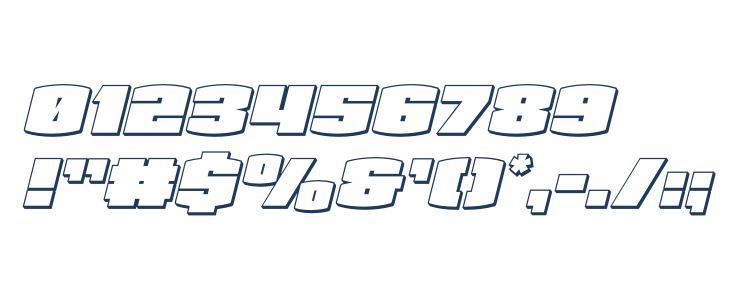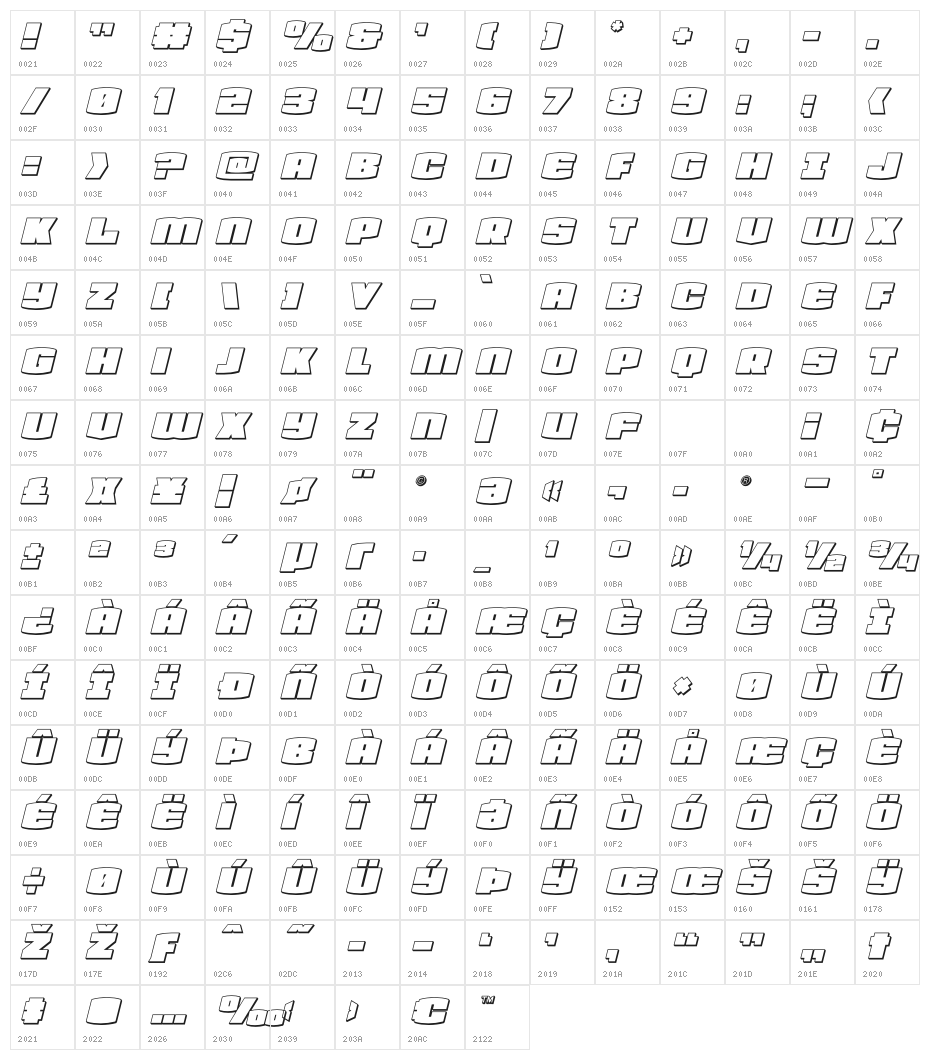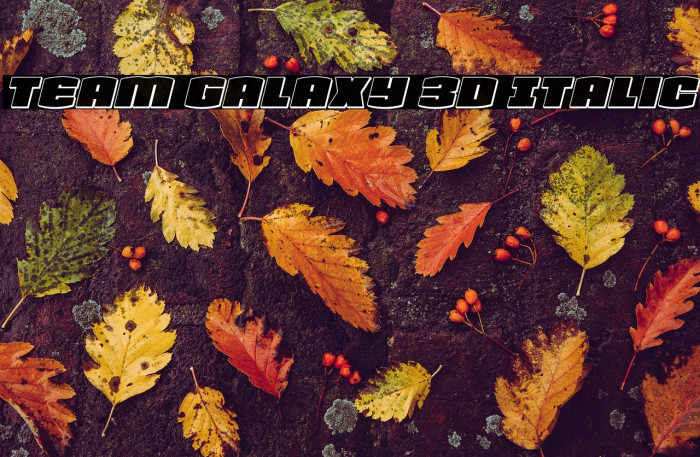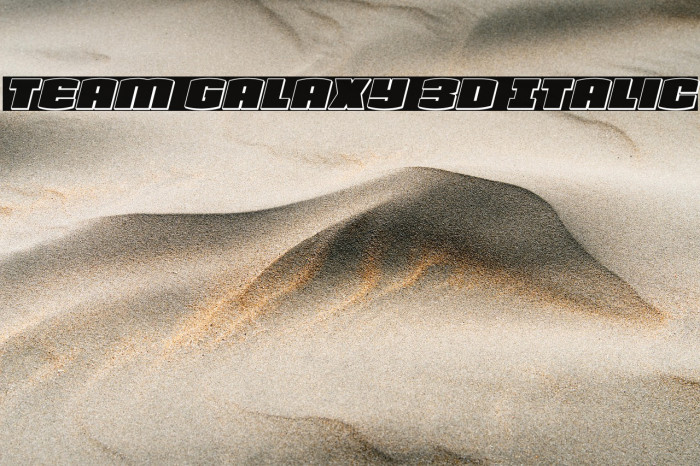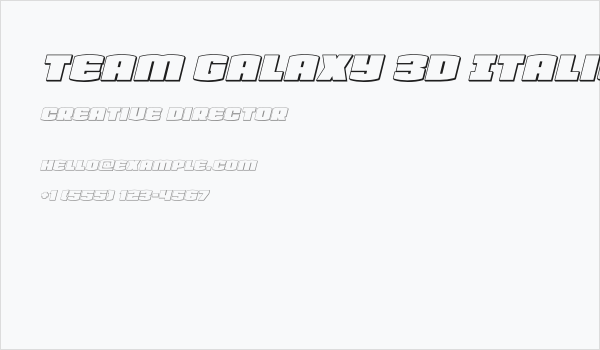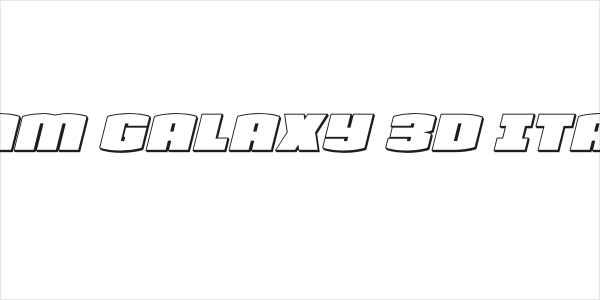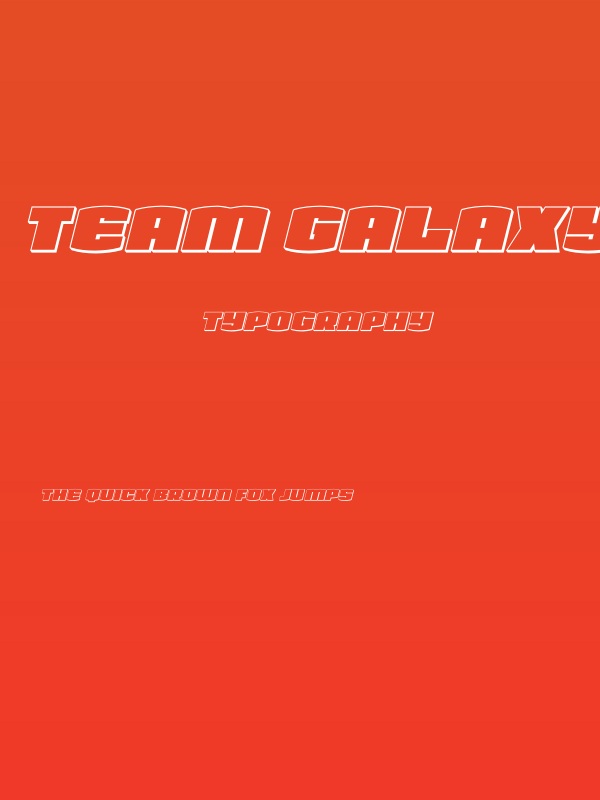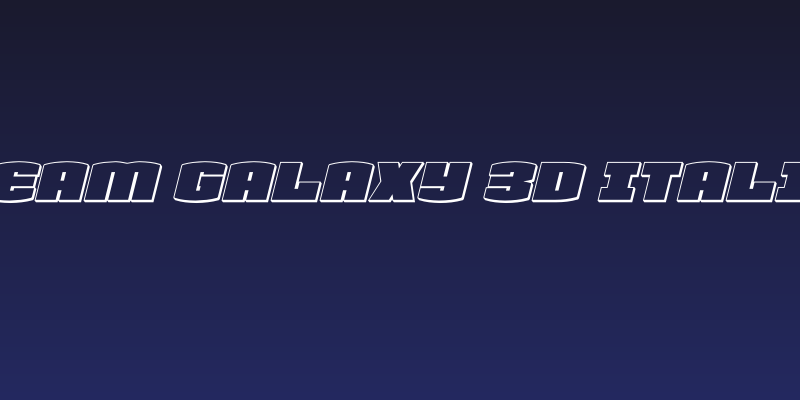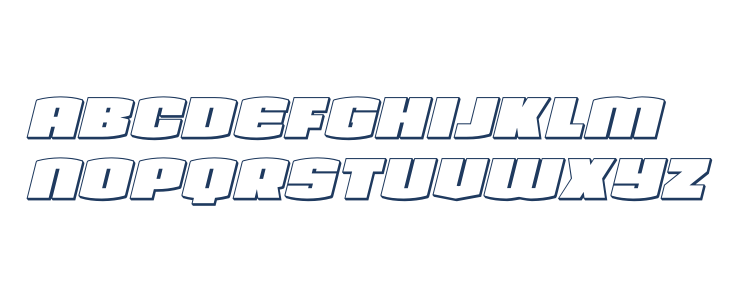
Team Galaxy 3D Italic Font
Team Galaxy 3D Italic Description
This font features a bold, three-dimensional style with a futuristic and dynamic appearance. The characters are designed with a strong, angular structure, giving them a sense of movement and depth. The italic slant adds to the energetic feel, making it ideal for projects that require a modern and impactful look. The uppercase letters are prominent and commanding, while the numbers and special characters maintain the same bold aesthetic. The font's design is perfect for capturing attention and conveying a sense of innovation and forward-thinking.
Proposed ProjectsIdeal for sci-fi themed designs, video game titles, tech branding, and futuristic posters.